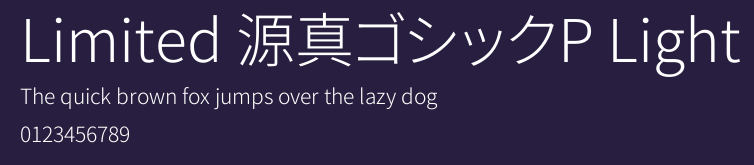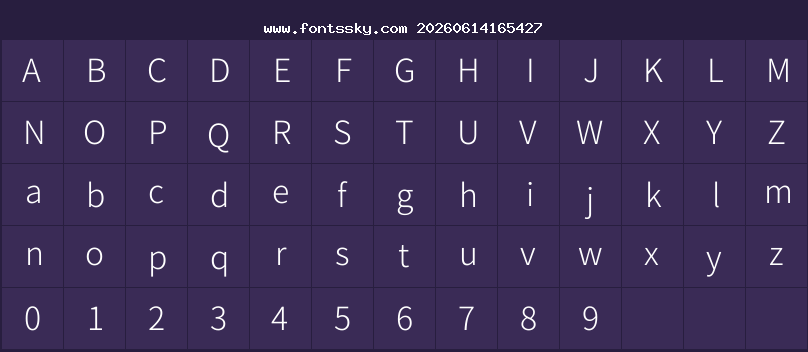
• Font Name: Limited 源真ゴシックP Light
• Font ID: 1.001.20150116;MM;GenShinGothic-P-Light;MM
• Full Font Name: Limited 源真ゴシックP Light
• Version: Version 1.001.20150116
• PostScript Name: limited-GenShinGothic-P-Light
• Character Count: 17105
• Designer: Ryoko NISHIZUKA (kana & ideographs); Paul D. Hunt (Latin, Greek & Cyrillic); Wenlong ZHANG (bopomofo); Sandoll Communication, Soo-young JANG & Joo-yeon KANG (hangul elements, letters & syllables)
• Description: Dr. Ken Lunde (project architect, glyph set definition & overall production); Masataka HATTORI (production & ideograph elements
About Limited 源真ゴシックP Light.ttf
Limited 源真ゴシックP Light.ttf is a modern, elegant sans-serif font designed for ultimate readability and visual harmony. Perfect for branding, headlines, web design, and print materials.